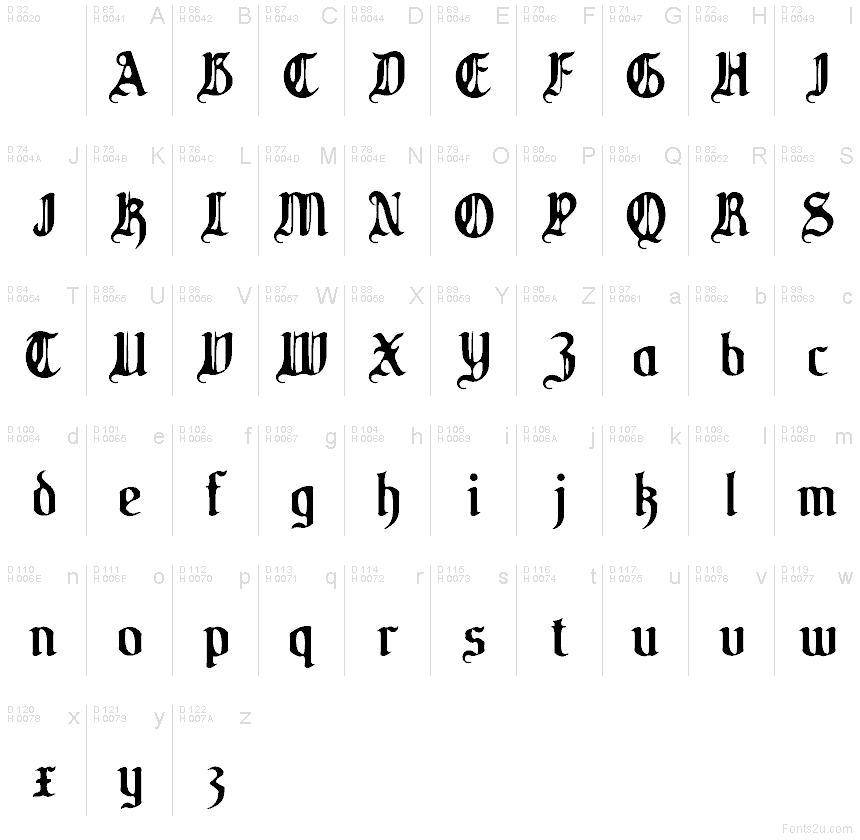
CS Rohesia Drawn font by Craft Supply Co. is a free medieval gothic font. Part of the CS Rohesia family, it stands out with hand-inked strokes, softened spurs, and slightly uneven contours that feel carved rather than cast. The texture gives classic blackletter drama without turning brittle—thick verticals anchor the eye while airy counters keep it readable at headline sizes.
Using CS Rohesia Drawn, you get instant mood for fantasy book covers, craft beer labels, metal posters, tattoo studio branding, renaissance festival signage, and apothecary-style packaging. This free font thrives when set large with a touch of extra tracking to let the curves breathe. Pair it with a plain grotesk for body copy to let the ornate forms lead, or keep it solo for statement wordmarks.